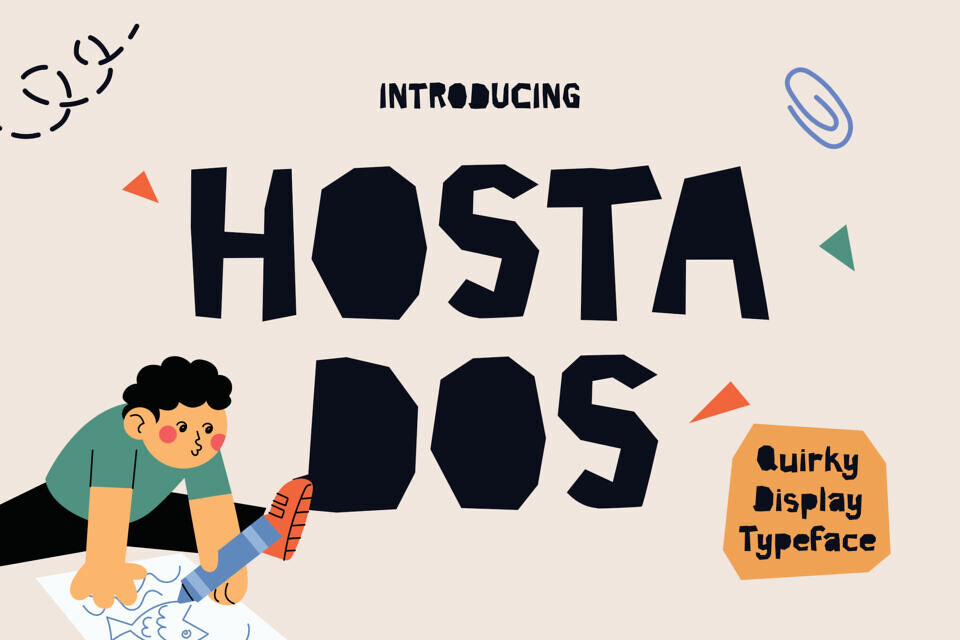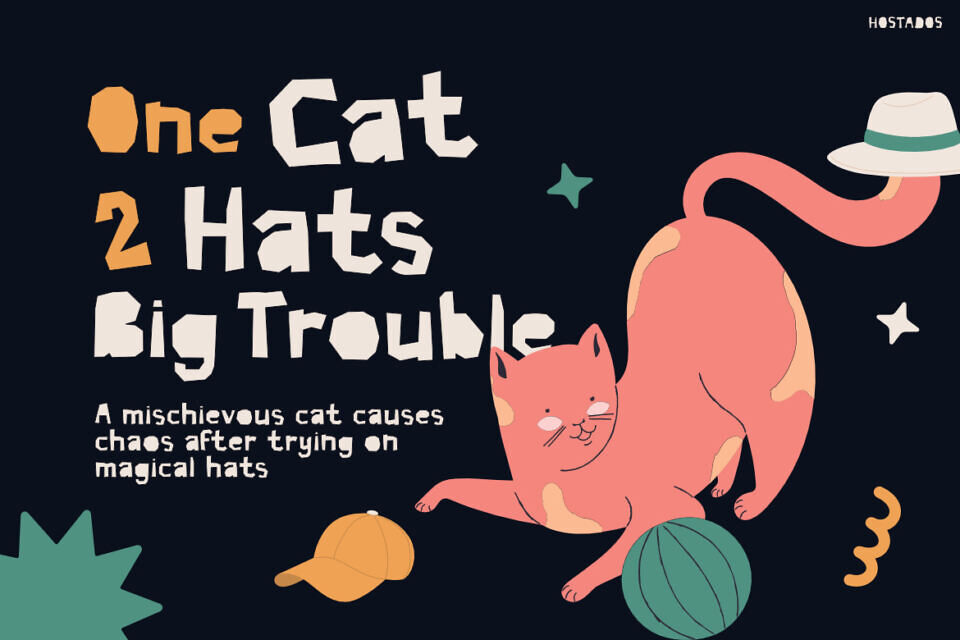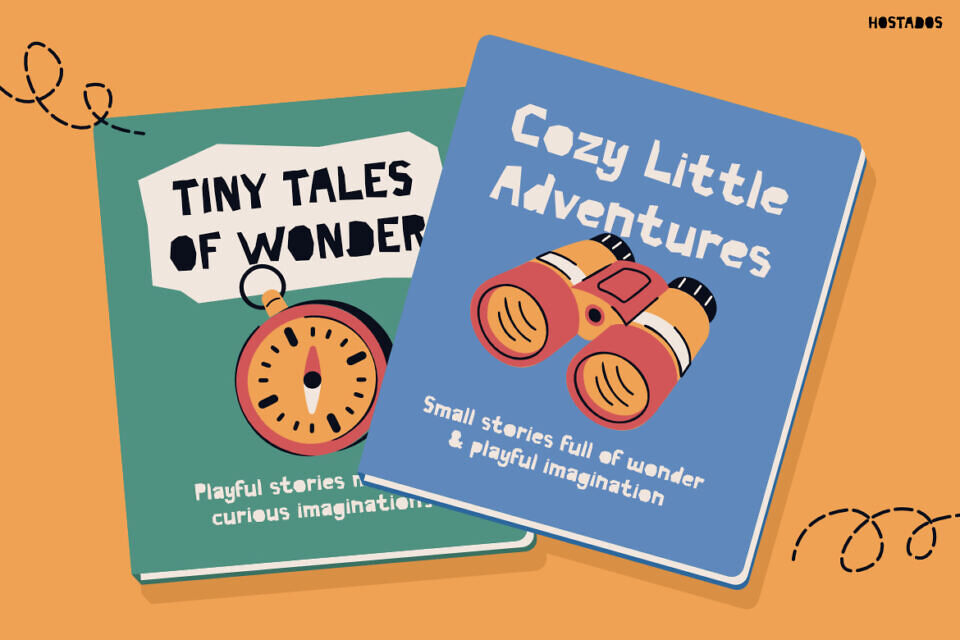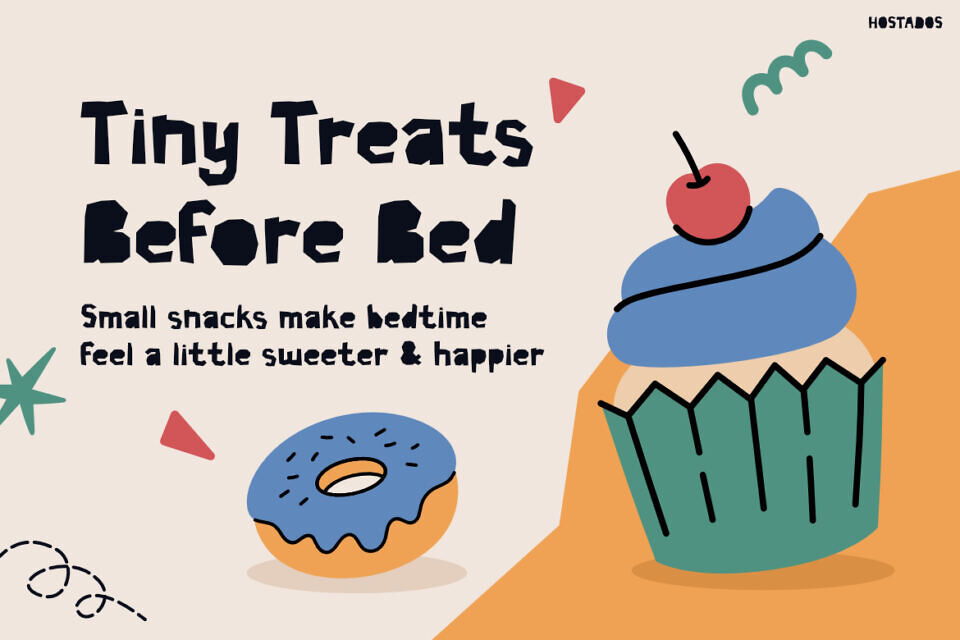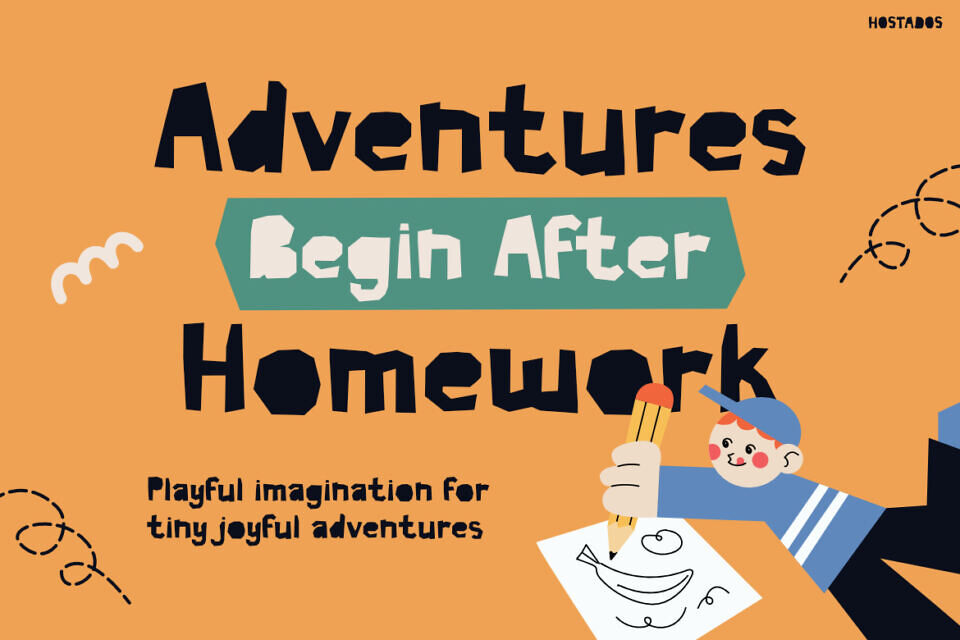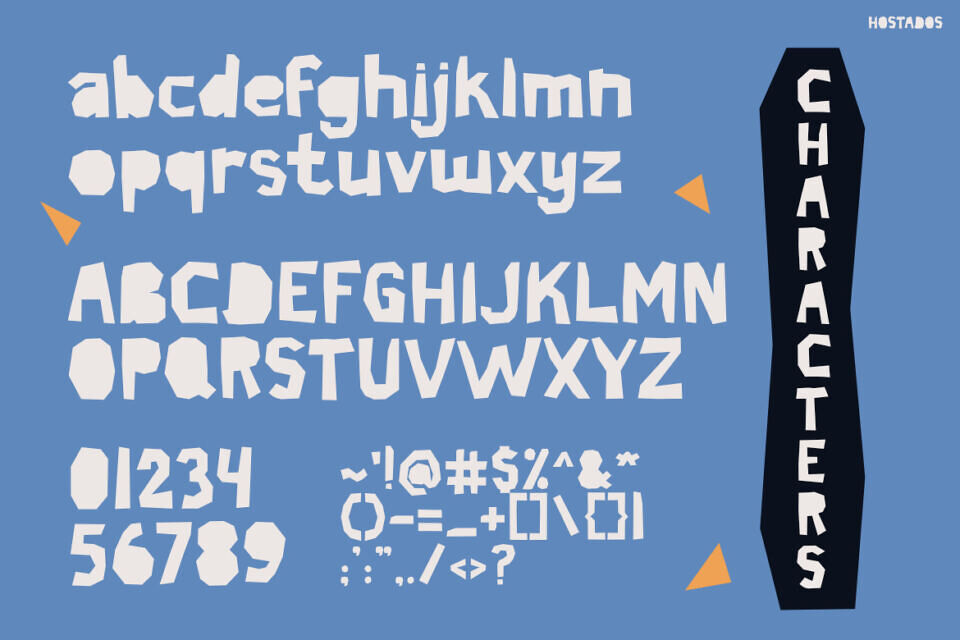
Hostados is a fun and quirky display font created to bring cheerful energy and childlike imagination into every design. Inspired by storybooks, doodles, playful adventures, and colorful classroom creativity, this font instantly creates a warm and exciting visual atmosphere.
The font combines chunky irregular shapes with handcrafted cartoon-style details, making every word feel expressive, energetic, and full of personality.